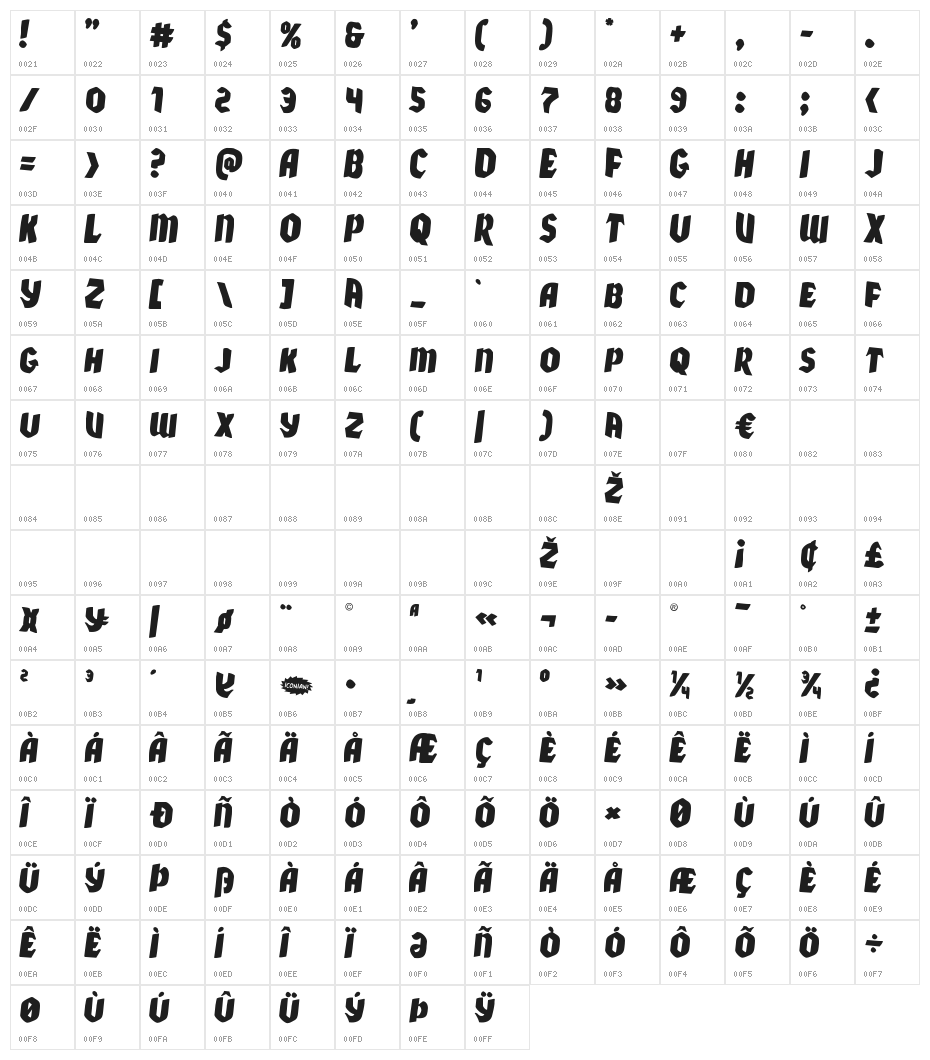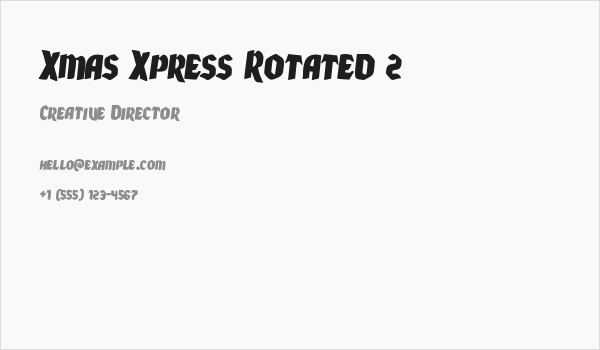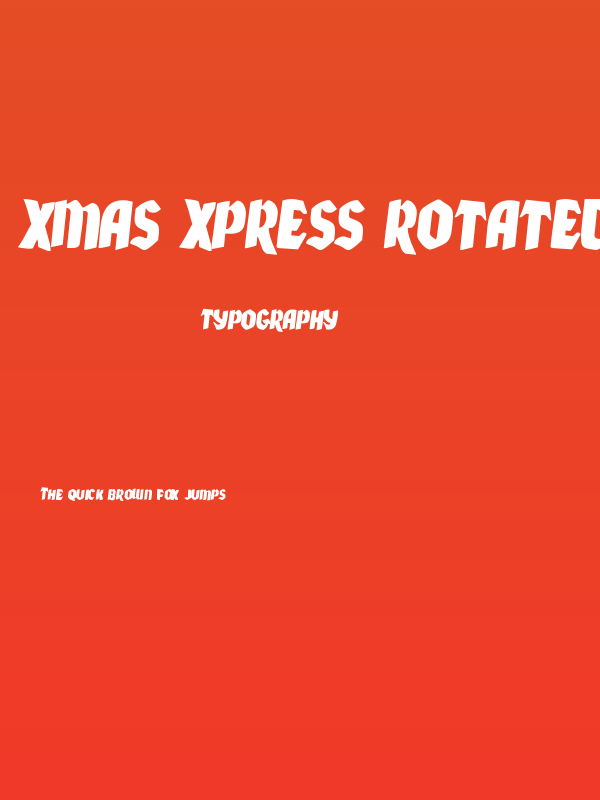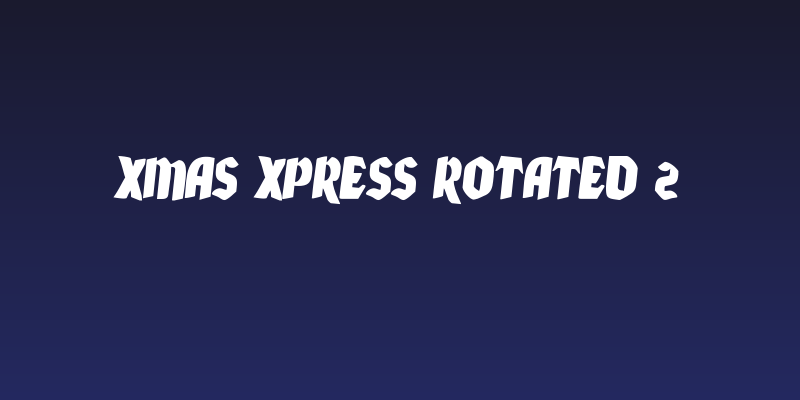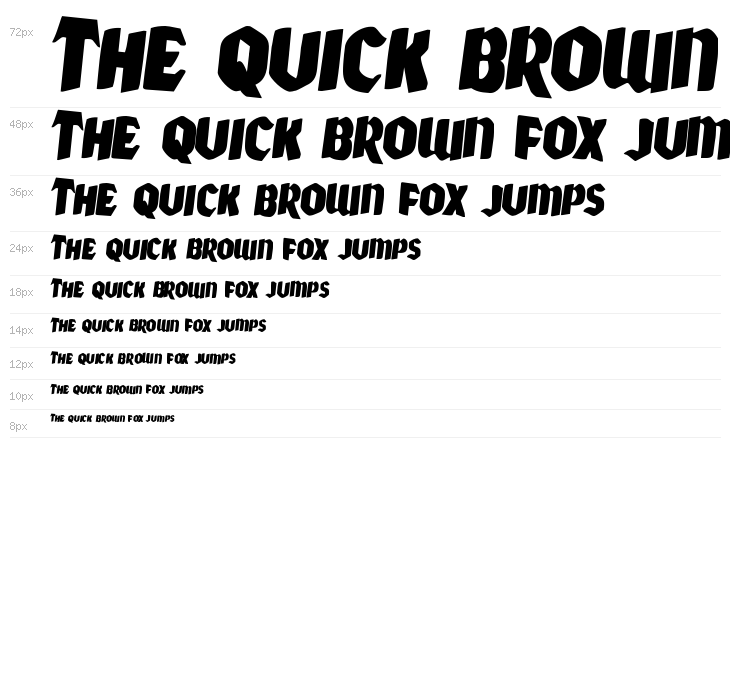
Xmas Xpress Rotated 2 Font
Xmas Xpress Rotated 2 Description
This font features a bold and dynamic style with a playful, festive flair. The characters are thick and slightly slanted, giving them a sense of movement and energy. The strokes are consistently bold, with a high contrast between the thick and thin parts of the letters. The overall design is reminiscent of holiday themes, making it ideal for seasonal projects. The uppercase and lowercase letters maintain a consistent style, with rounded edges and a slightly condensed appearance. The numbers and special characters follow the same design principles, ensuring uniformity across all elements.
| Overall Style | Festive, Playful |
| Use Case | Headlines, Logos, Seasonal Promotions |
| Proposed Projects | Ideal for holiday-themed designs, greeting cards, festive banners, and playful branding. |